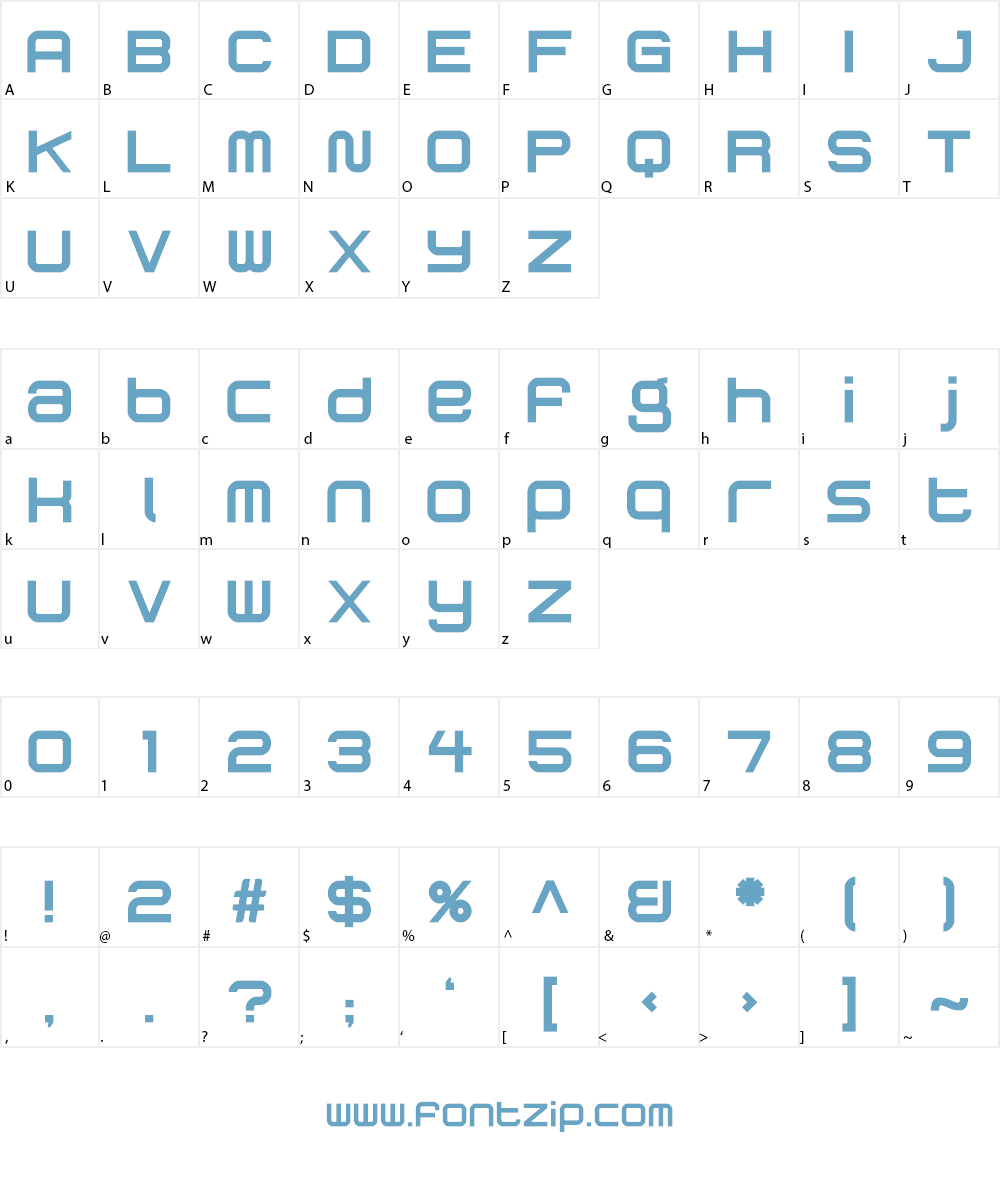
LogoPixies is a logo-styled Japanese sans-serif font to be best suited for logos and headlines, reminiscent to the some of Japan's greatest logo-styled sci-fi fonts, such as VDL's Logo fonts. While other characters (including Latin and Kana characters) are the original, some of them were taken from Roboto and Lato and most of other characters (including the Kanji), are borrowed from M . Unlike many Japanese fonts, it is ideal for SFW works only.